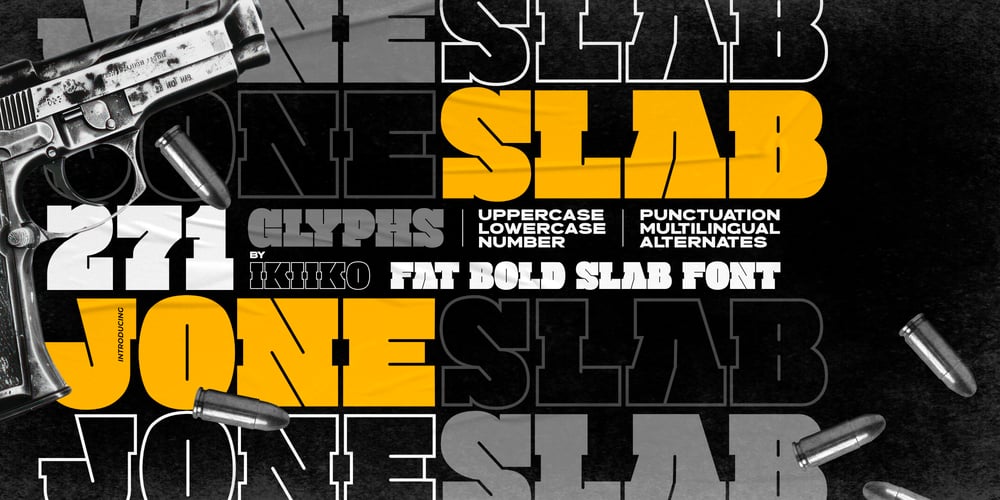
Joneslab Font Family was designed by Andhika Pradana and published by IKIIKOWRK. Joneslab contains 1 styles and family package options. Proudly present Joneslab – Fat Bold Slab Font, created by ikiiko.A strong, dominating typeface that radiates strength and confidence. Joneslab’s letters are expertly constructed with broad, robust lines that give them a significant presence on the page or screen. Every character has an attention-grabbing aggressiveness that makes it perfect for titles, headings, and signage where impact is important.Joneslab has two unique styles—bold and outlined—to accommodate different design requirements. The font’s substantial weight is emphasized by the bold style, which makes the text stand out against the backgrounds. The stronger strokes used to outline the characters in the outlined style give a striking contrast to the negative space within each letter, while the overall effect adds a dynamic flair.This font is very suitable for making a movie poster, movie title, poster, headline, cover, magazine layout, food & beverages packaging, quotes, or simply as a stylish text overlay to any background image.What’s Included? Uppercase & Lowercase Numbers & Punctuation Alternates Multilingual Support Works on PC & Mac